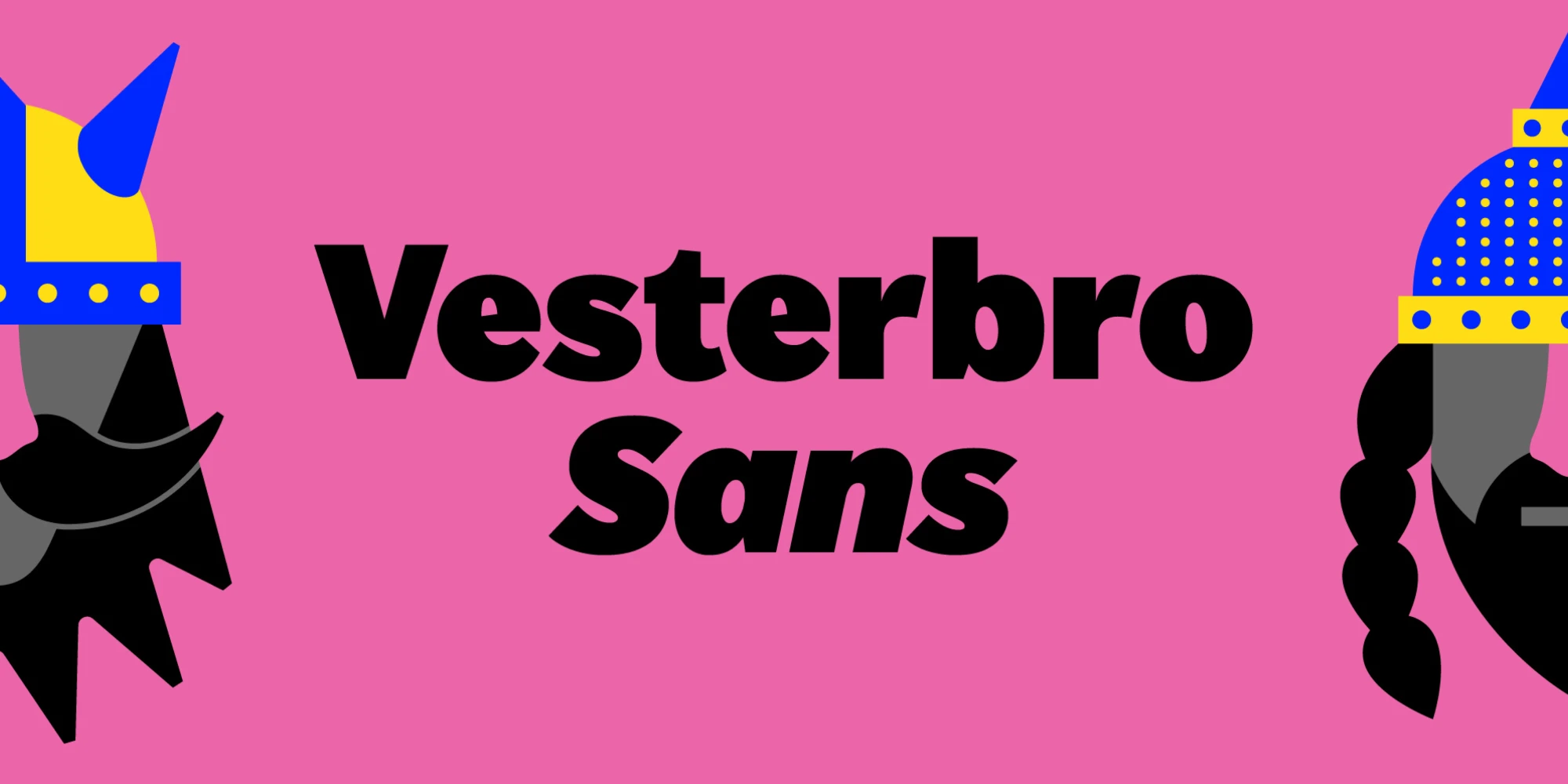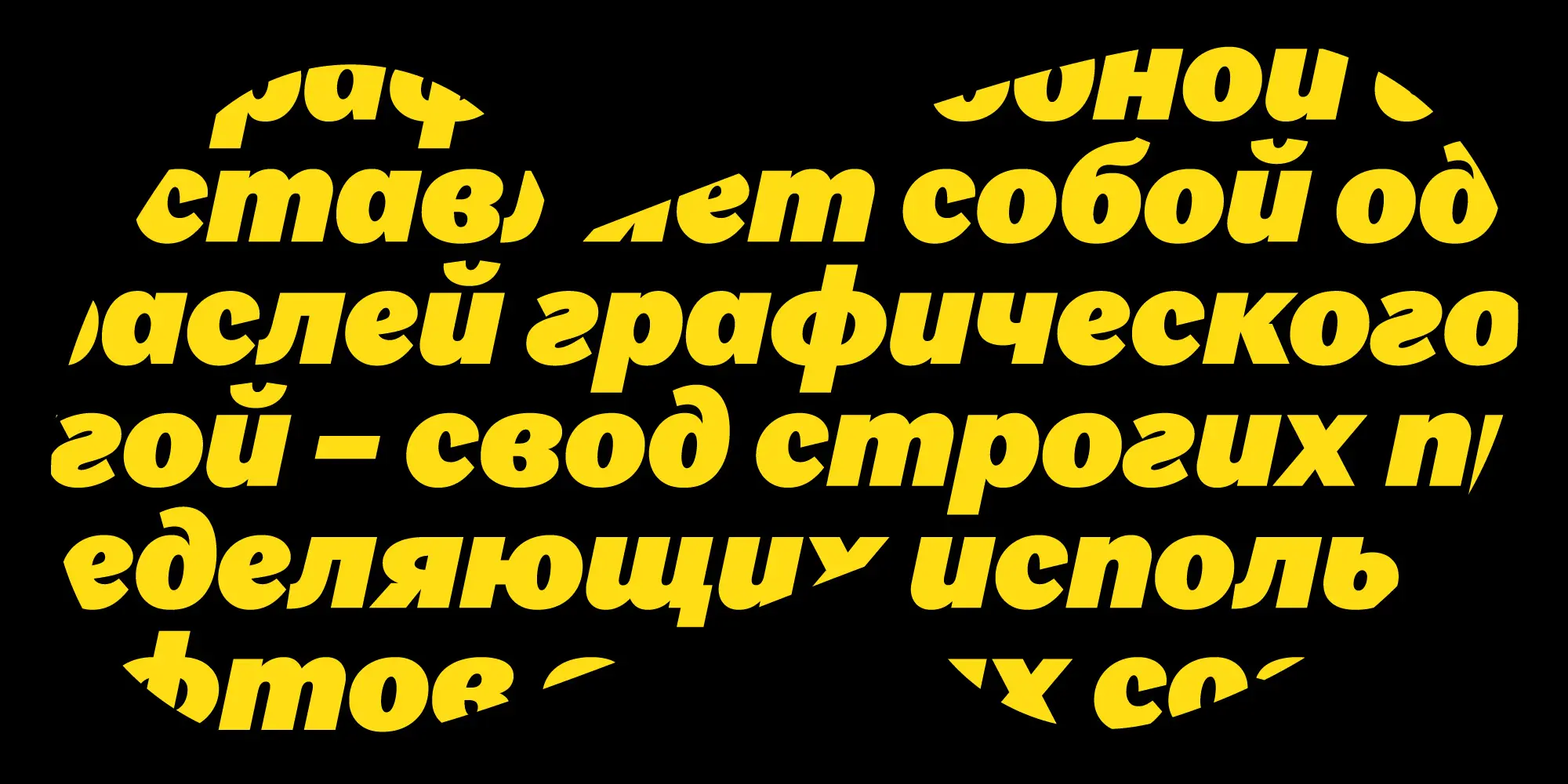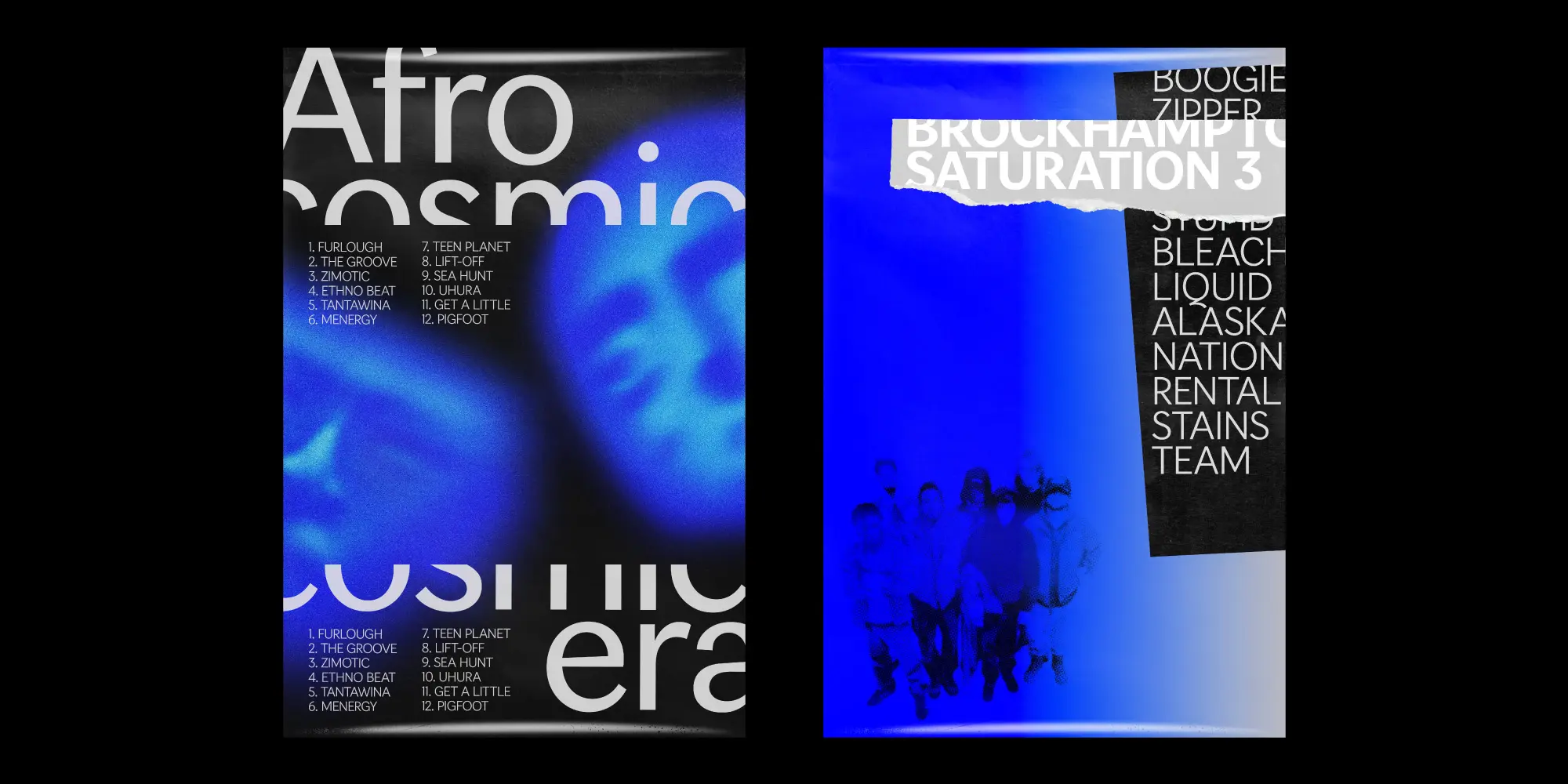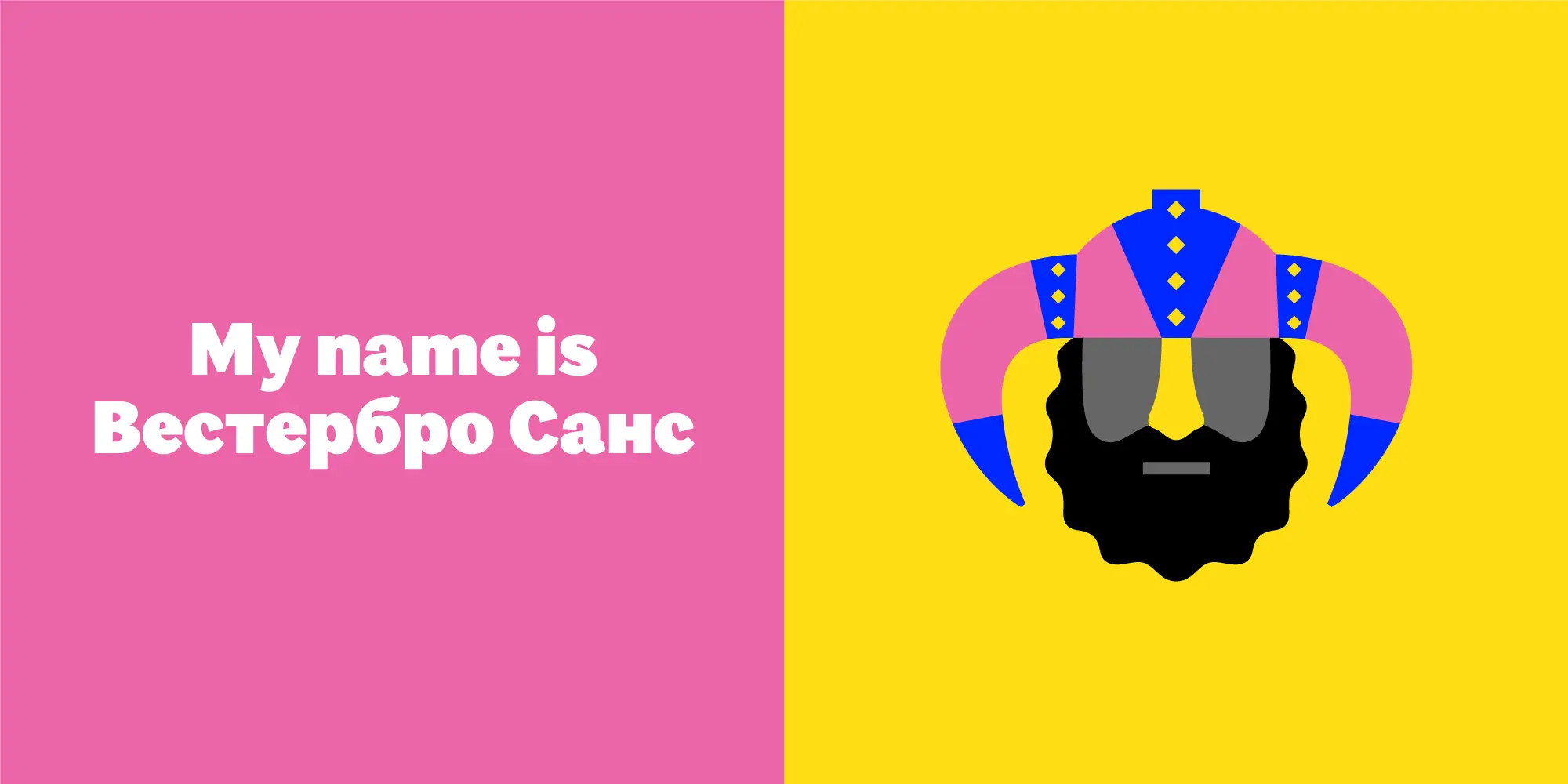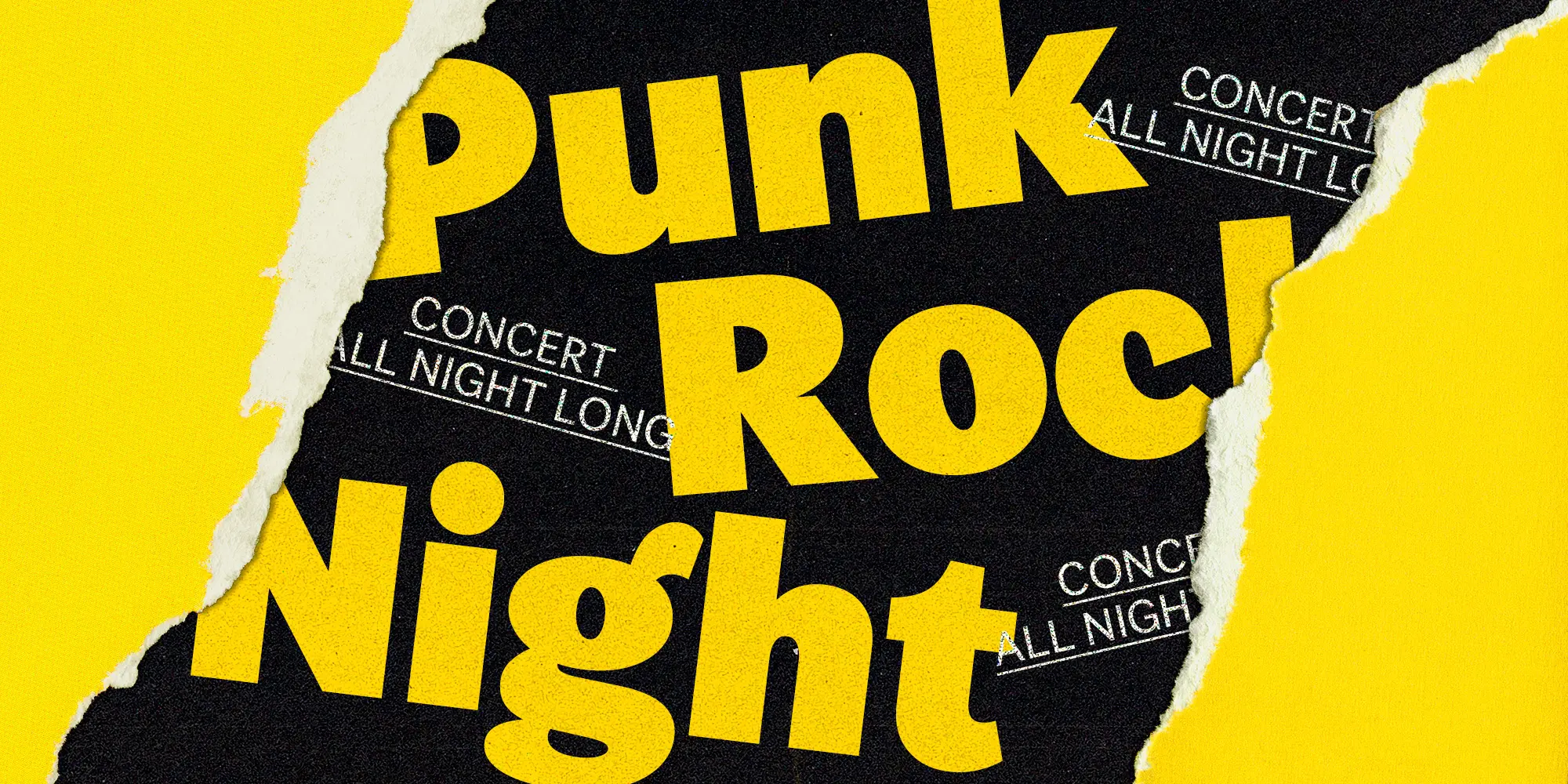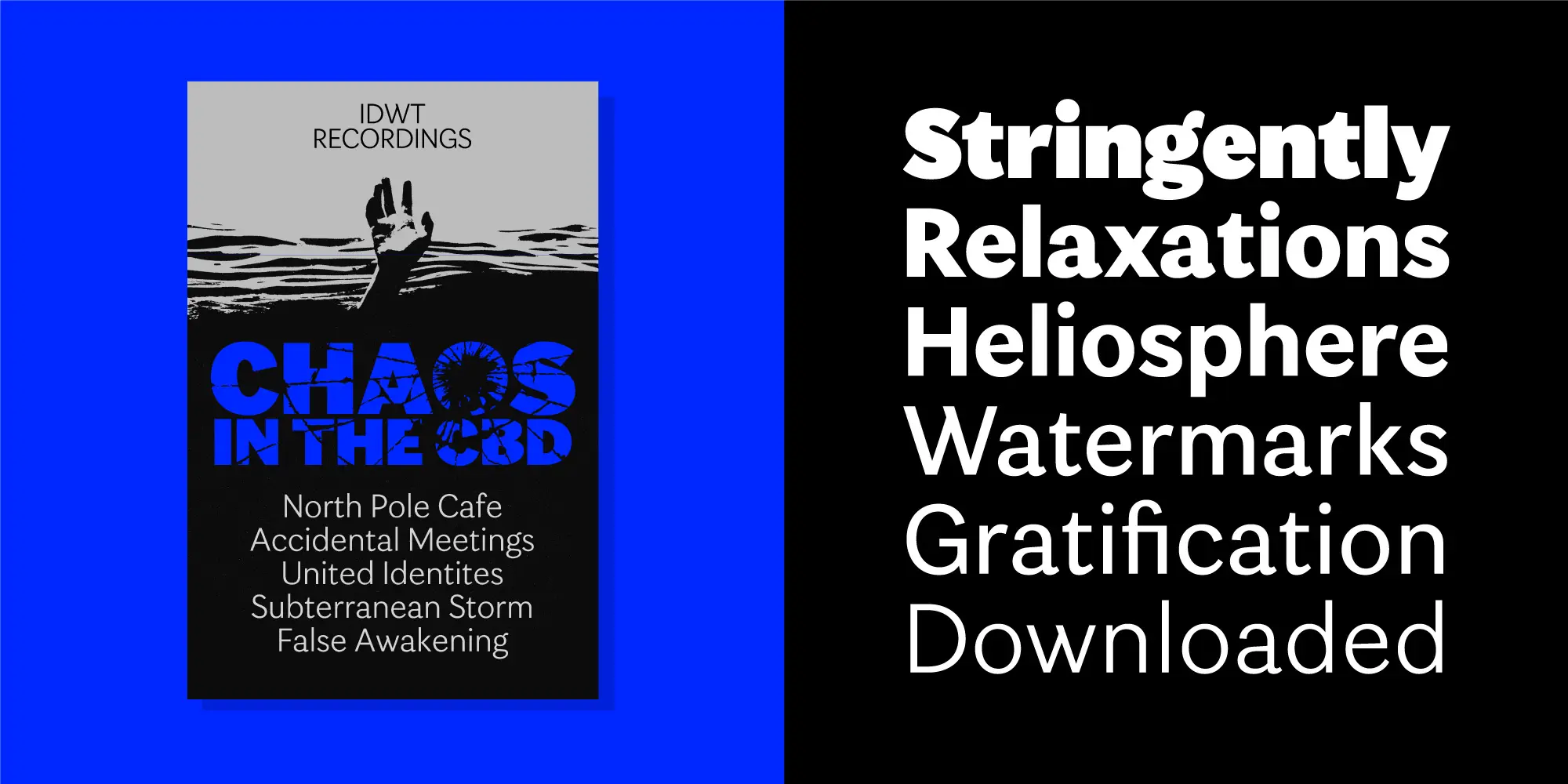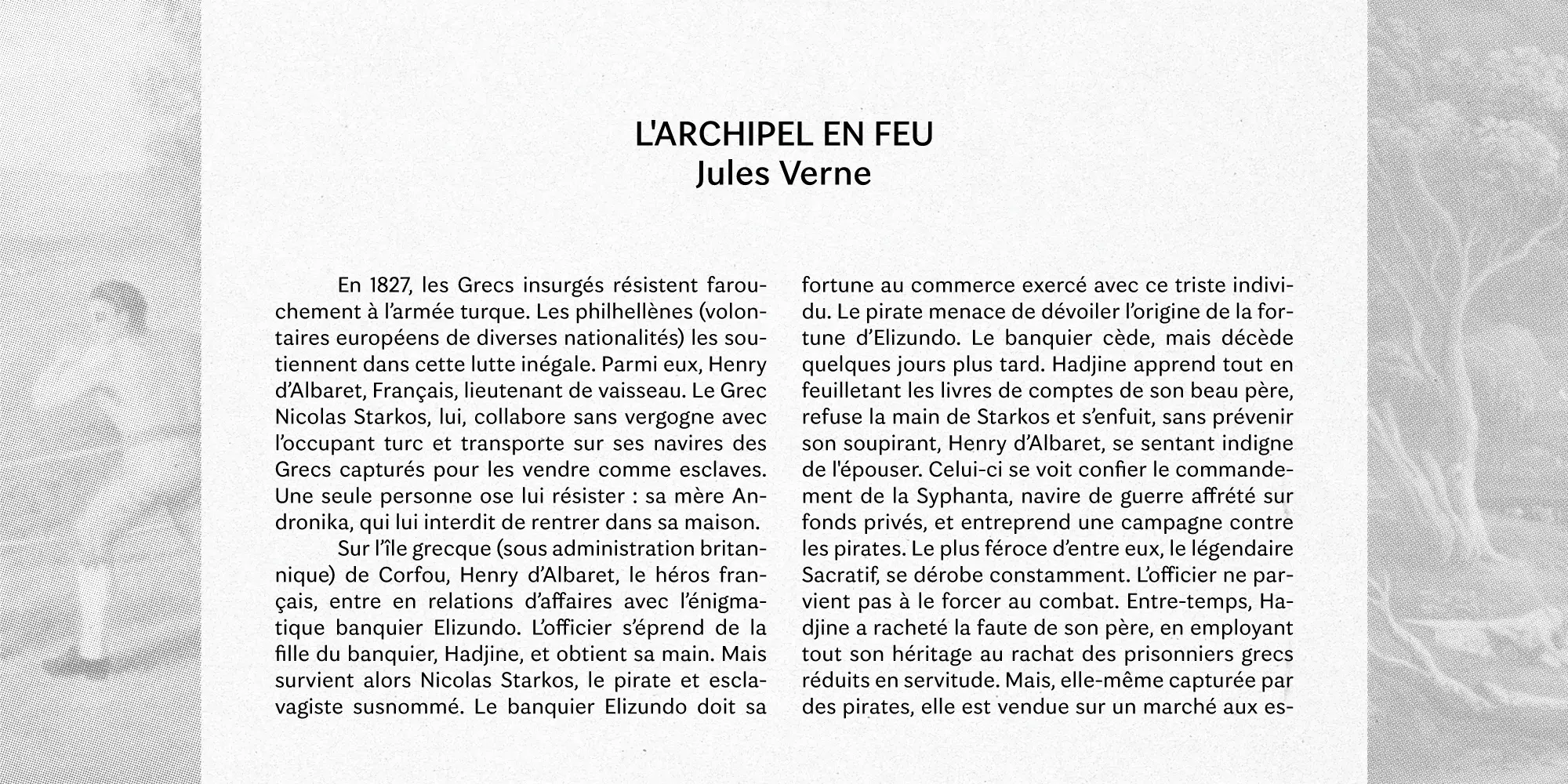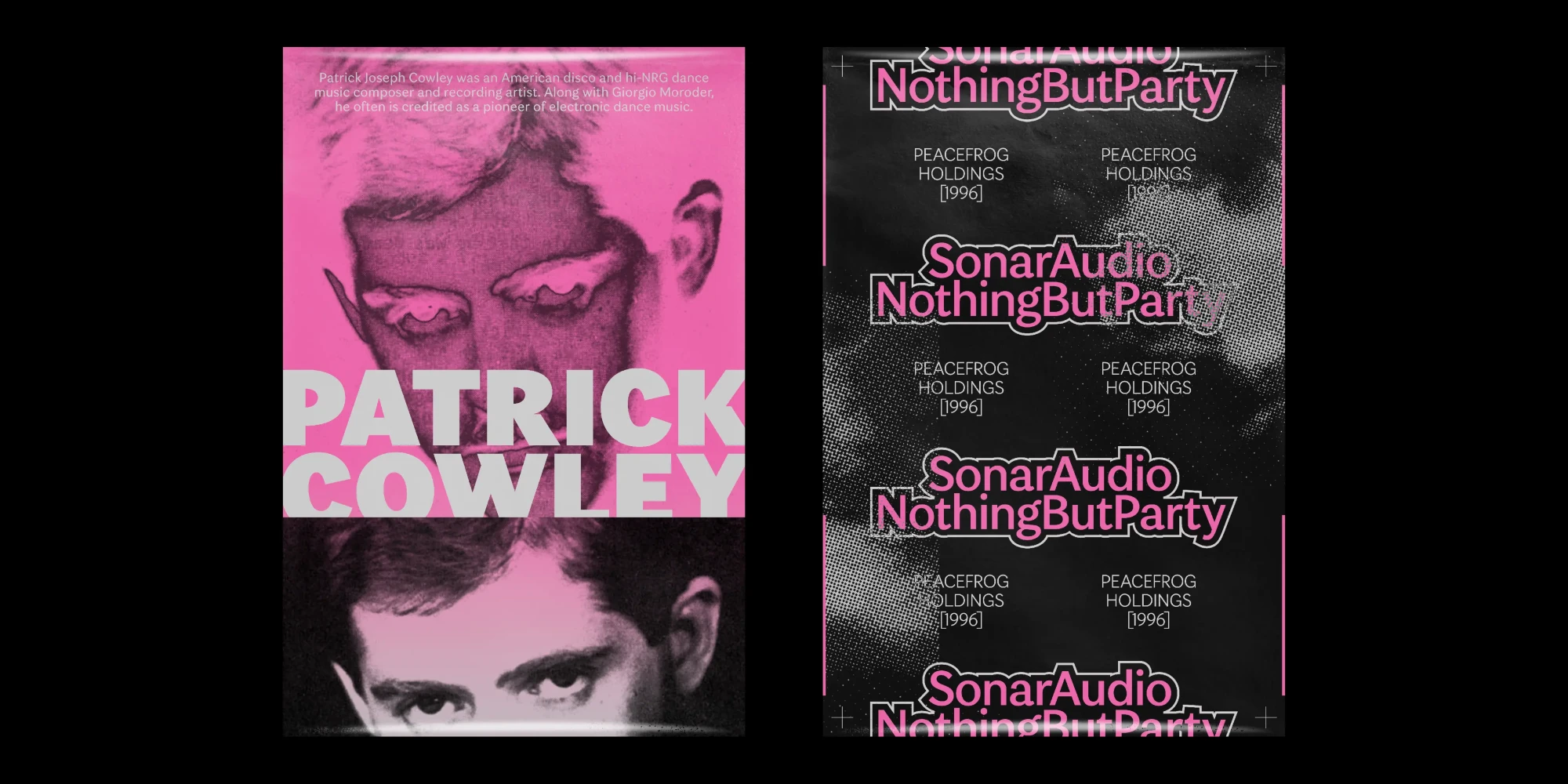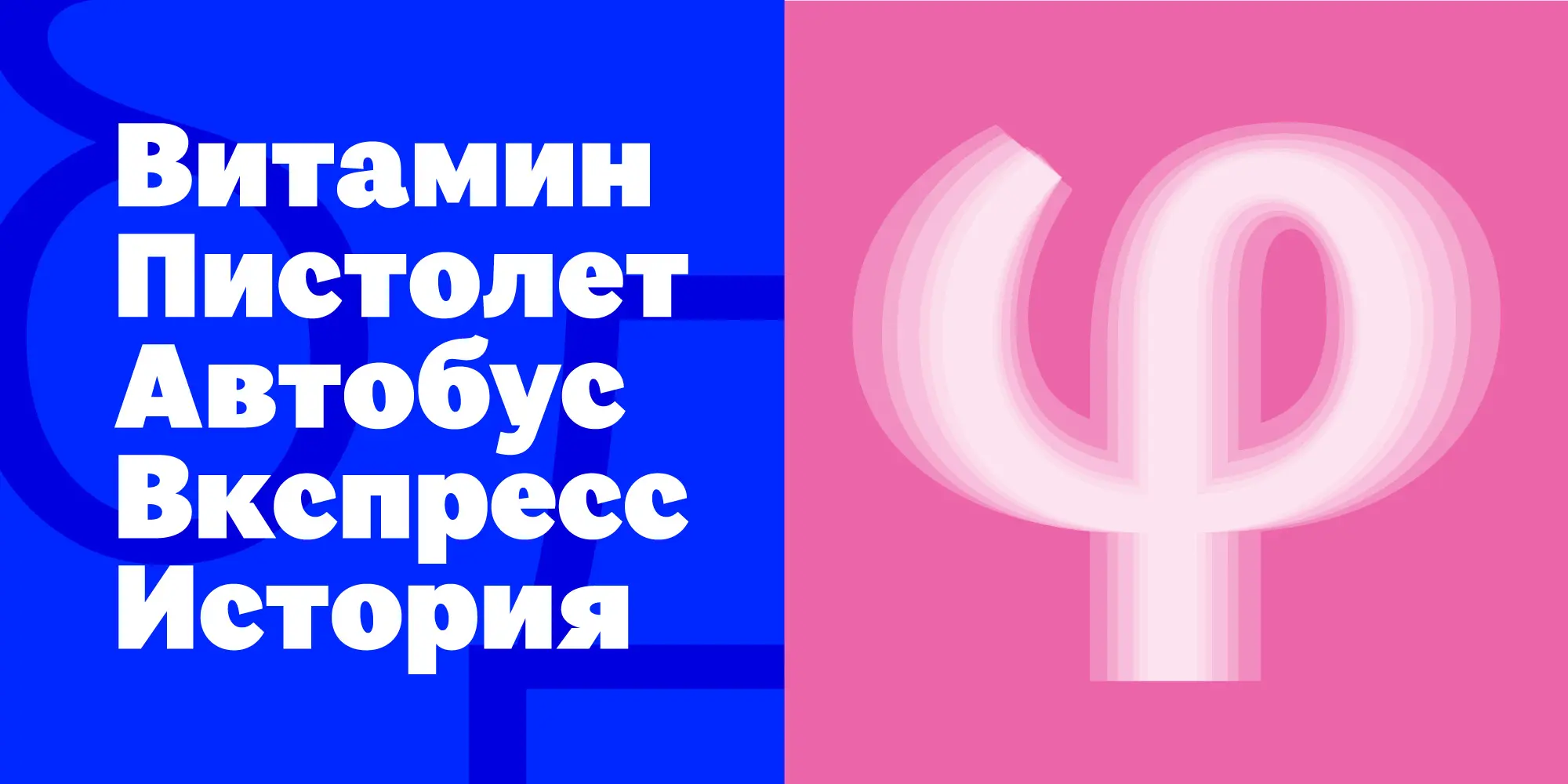
Vesterbro Sans Fonts
Vesterbro Sans is a sans serif font family balancing versatility with expressive detail. Distinctive features such as a two-storey g, large counters, and angled terminals give it a humanist tone, setting it apart from other run-of-the-mill geometric designs. Available in Light to ExtraBold, plus a tightly spaced Poster style, all supporting Latin, Greek, and Cyrillic. Vesterbro Sans offers precision and personality for branding, editorial, and global design, all while extending the concept of Vesterbro.
Designed by
Black Foundry Designers
Features
OpenType Features
- Common Ligatures
- Fractions
- Lining Numerals
- Old Style Numerals
- Ordinal Numerals
- Proportional Numerals
- Stylistic Sets
- Subscript
- Superscript
- Tabular Numerals